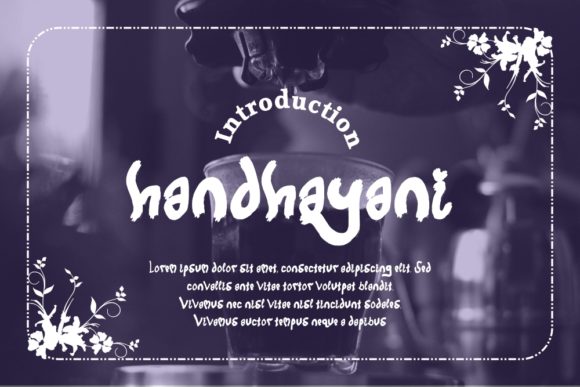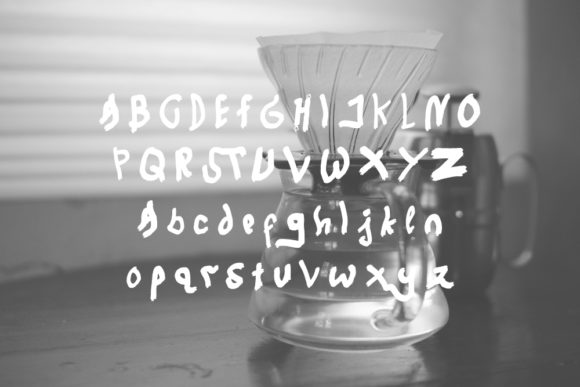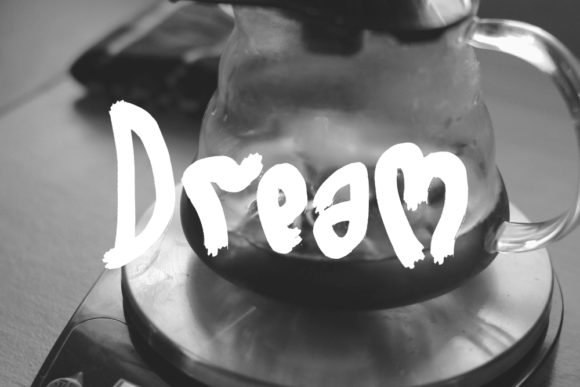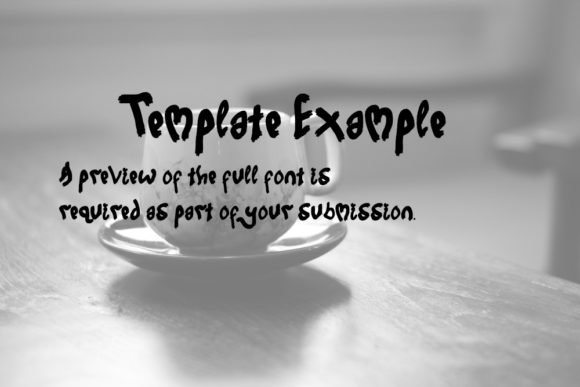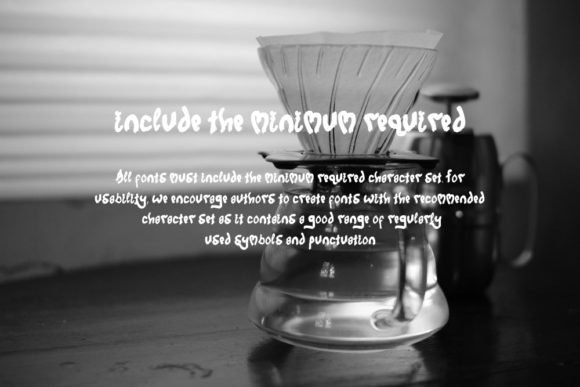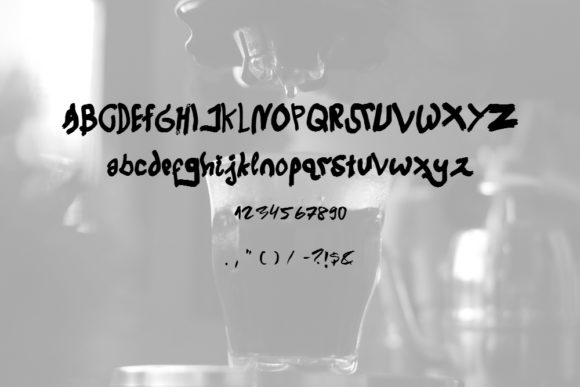
Handhayani Font
About Handhayani Font
Handhayani is a bold handwritten font. Its casual charm makes it appear wonderfully down-to-earth, readable and, ultimately, incredibly versatile. Handhayani will look outstanding in any context, whether it’s being used on busy backgrounds or as a standalone headline!